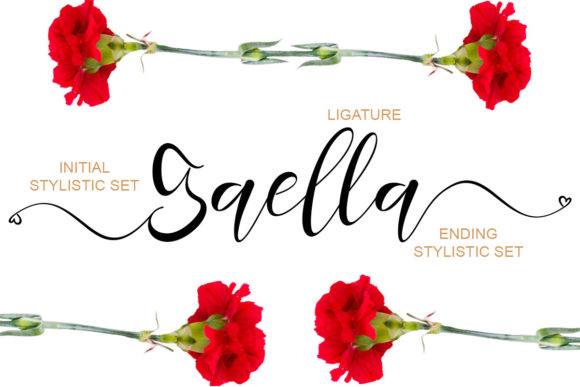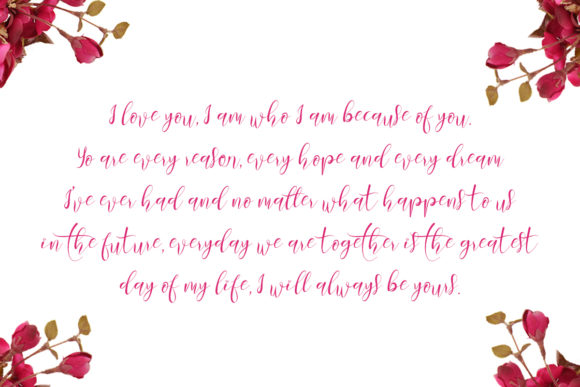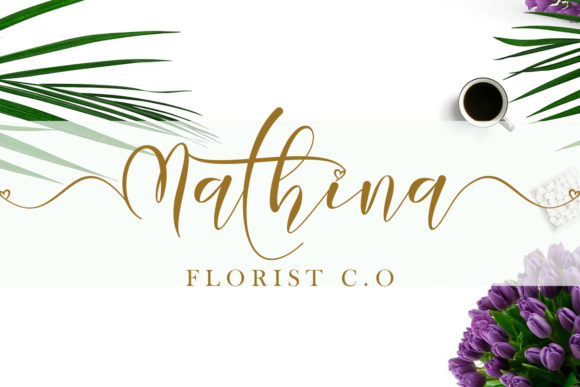
Introduction to Monalissa Font
As a designer, you’ve probably been in that moment where you’re working on a creative project, and the perfect font is just out of reach. You’ve scrolled through countless options, but nothing seems to capture the essence of your vision. That’s where the Monalissa Font comes in – a game-changing design resource that elevates your work to the next level.
With its elegant and flowing style, the Monalissa Font is a must-have for any designer looking to add a handwritten touch to their designs. Whether you’re creating wedding invitations, thank you cards, or quotes, this font is sure to make your project stand out. Its smooth lines, gorgeous glyphs, and stunning alternates make it a high-quality design resource that’s perfect for any creative endeavor.
What’s more, the Monalissa Font is available for free download, making it an accessible design resource for designers of all levels. And with its transparent background, you can easily layer it over any design element to create a seamless look. Whether you’re a seasoned pro or just starting out, the Monalissa Font is an invaluable asset for any designer looking to take their work to new heights.
Key Features of Monalissa Font
- High-quality, elegant script font ideal for creative projects requiring a touch of sophistication.
- Comes in a transparent background design, making it perfect for designers who want to add a unique touch to their work.
- Includes 6 different font styles, with each style offering a unique twist on the classic script design.
- Perfect for use in a variety of creative projects, including invitations, logos, and other design elements where a touch of elegance is required.
Honest Review: Monalissa Font
I recently stumbled upon the Monalissa Font and was excited to give it a try for my next creative project. Overall, I was impressed with the design resource.
- The Monalissa Font is a high-quality design resource with a wide range of styles and fonts to choose from.
- The transparent background makes it easy to overlay on images or videos without any distractions.
- The font is highly customizable, allowing me to tailor it to my specific design needs.
One of the main limitations I encountered was the limited support for non-English languages. This could be a major issue for designers working on international projects.
Overall, I’m quite impressed with the Monalissa Font and would definitely recommend it to designers looking for a high-quality design resource for their creative projects.
Tips for Getting the Most Out of Monalissa Font
Common Use Cases for Monalissa Font
Monalissa Font is a versatile font that can be used in a variety of creative projects, including logos, business cards, and brochures. It is also a great font to use in digital design projects, such as website design and social media graphics. With its transparent background and high-quality design, Monalissa Font is a great resource for designers who
Q: Is the Monalissa Font high quality?
Yes, the Monalissa Font is designed to be a high-quality font, suitable for a wide range of creative projects. It features a clear and elegant design, making it perfect for use in body text, headings, and other design elements. The font’s high quality ensures that it will look great on various devices and